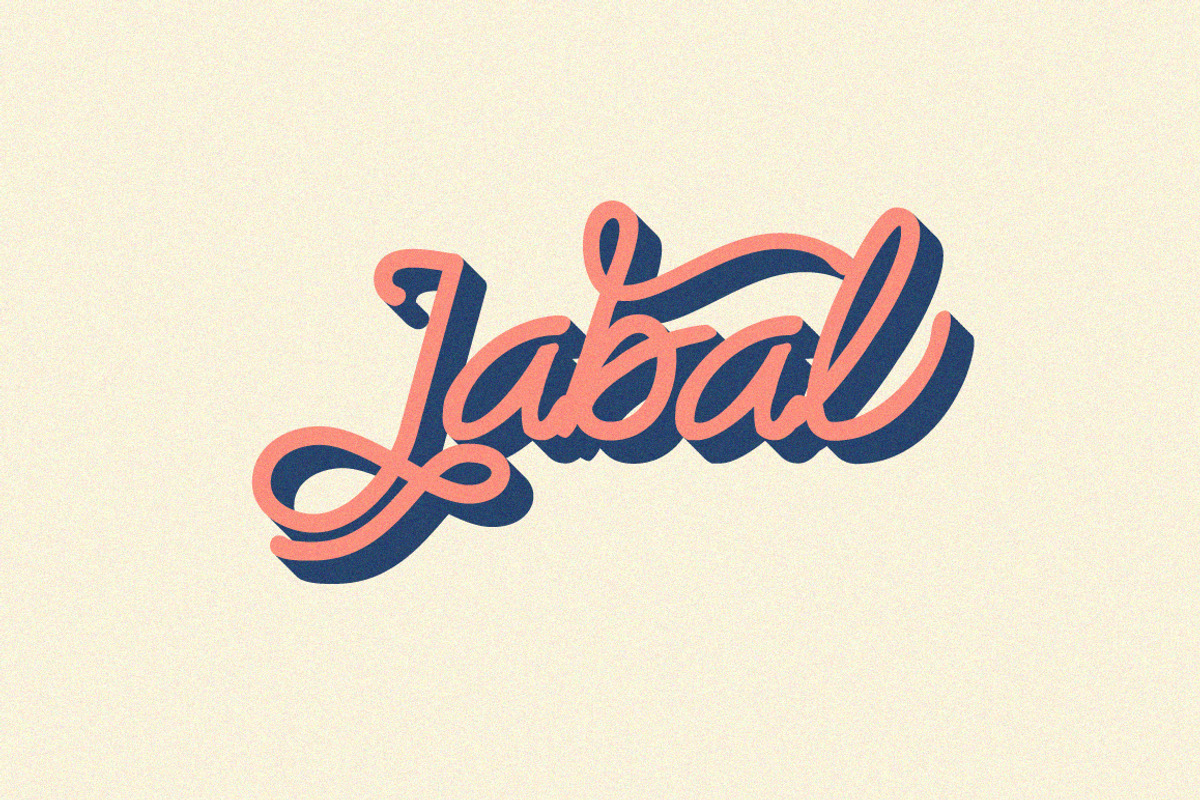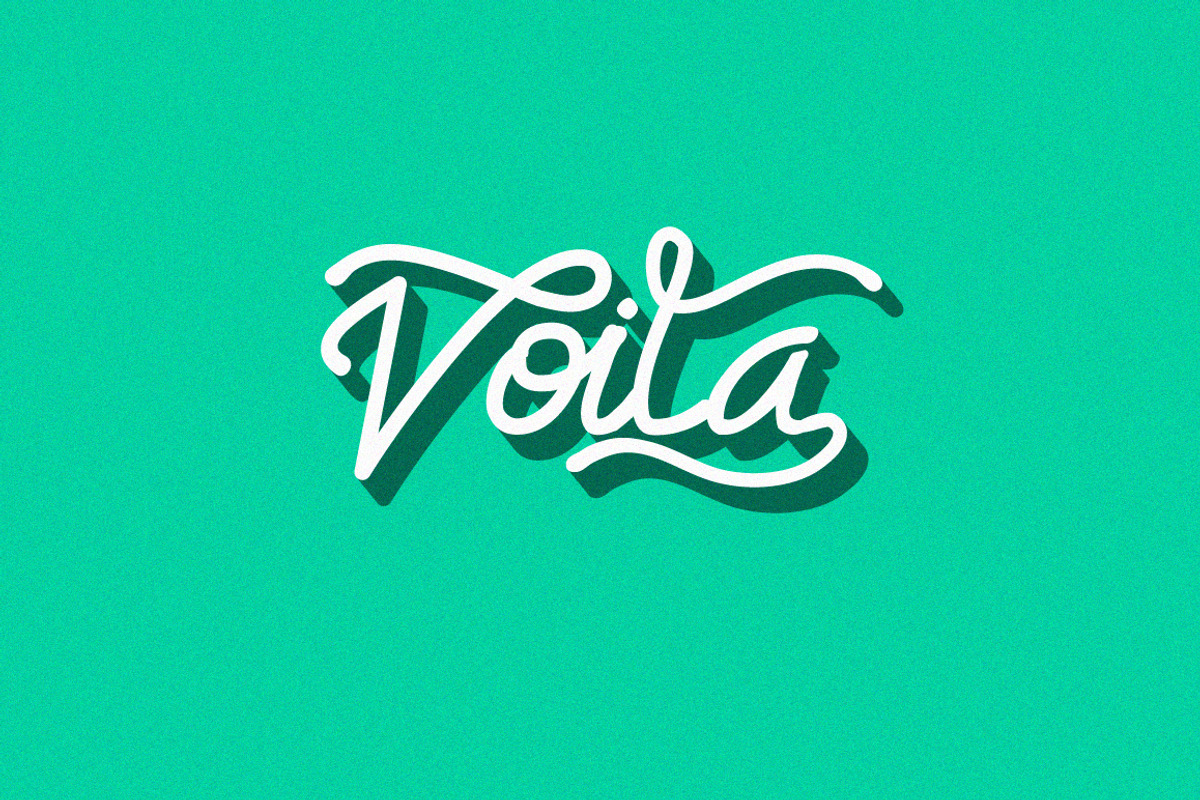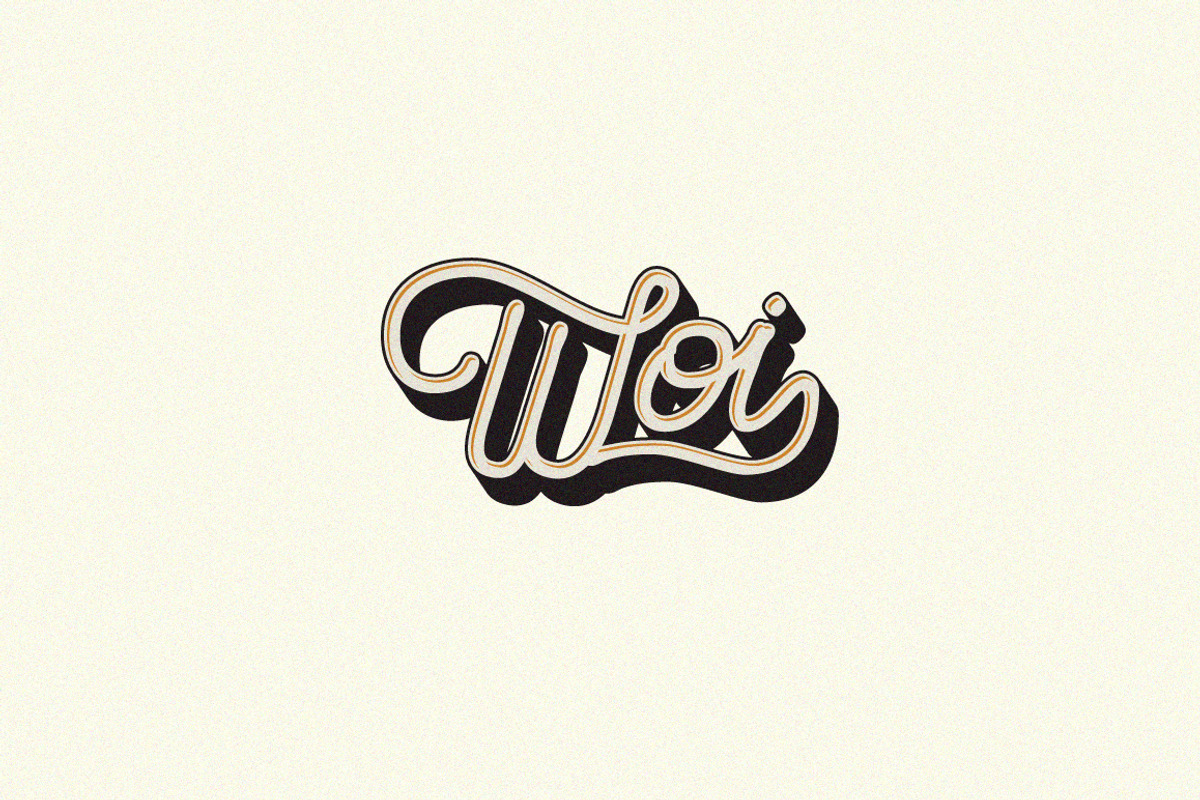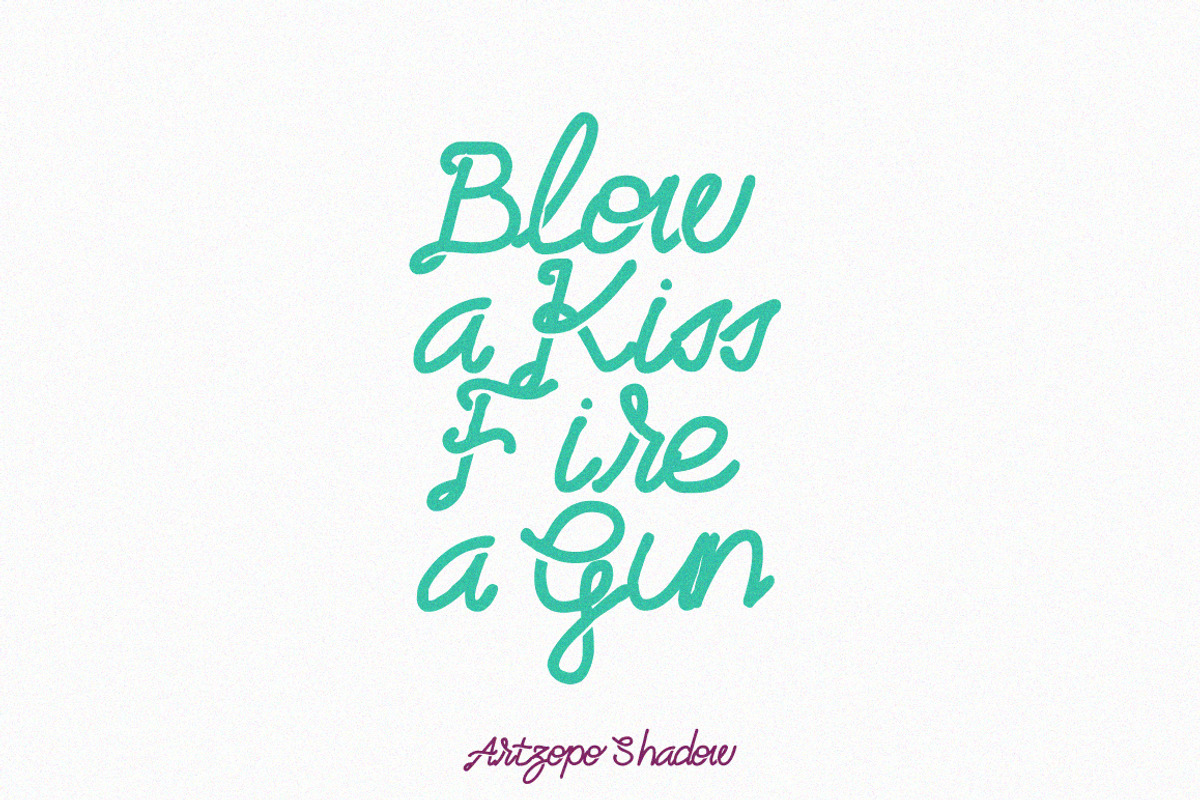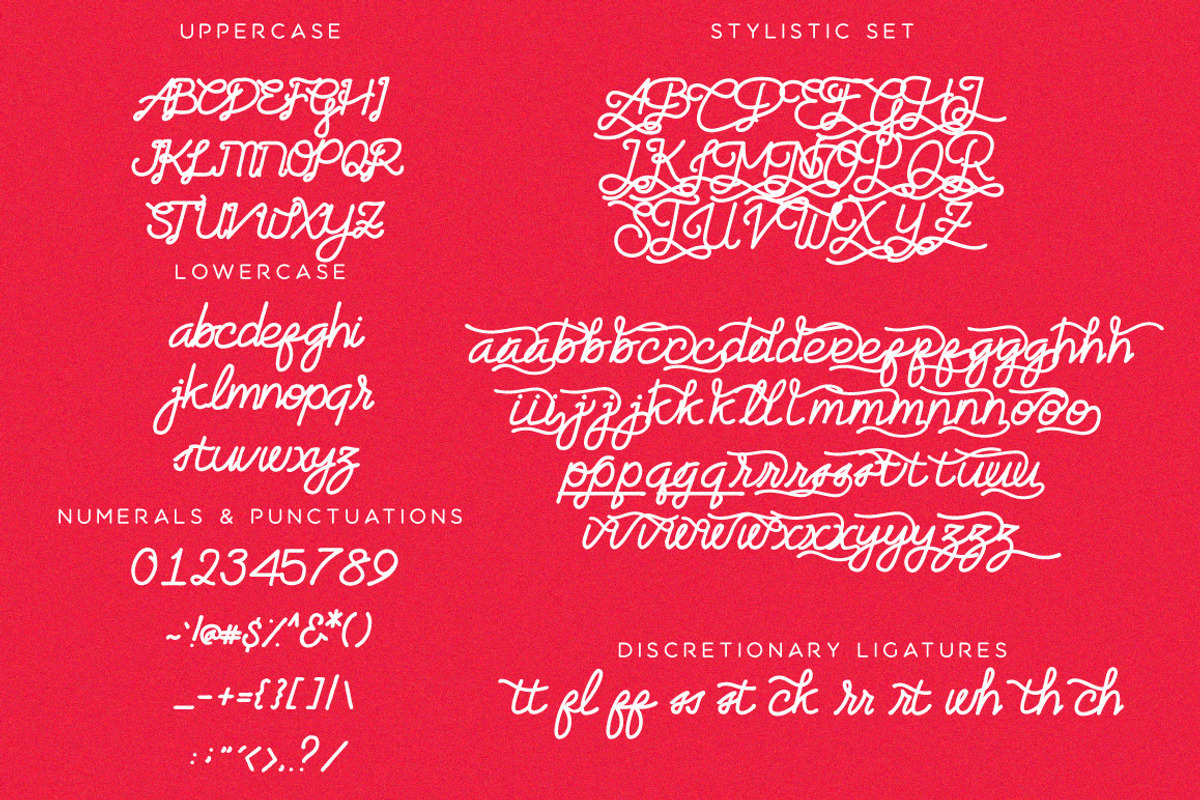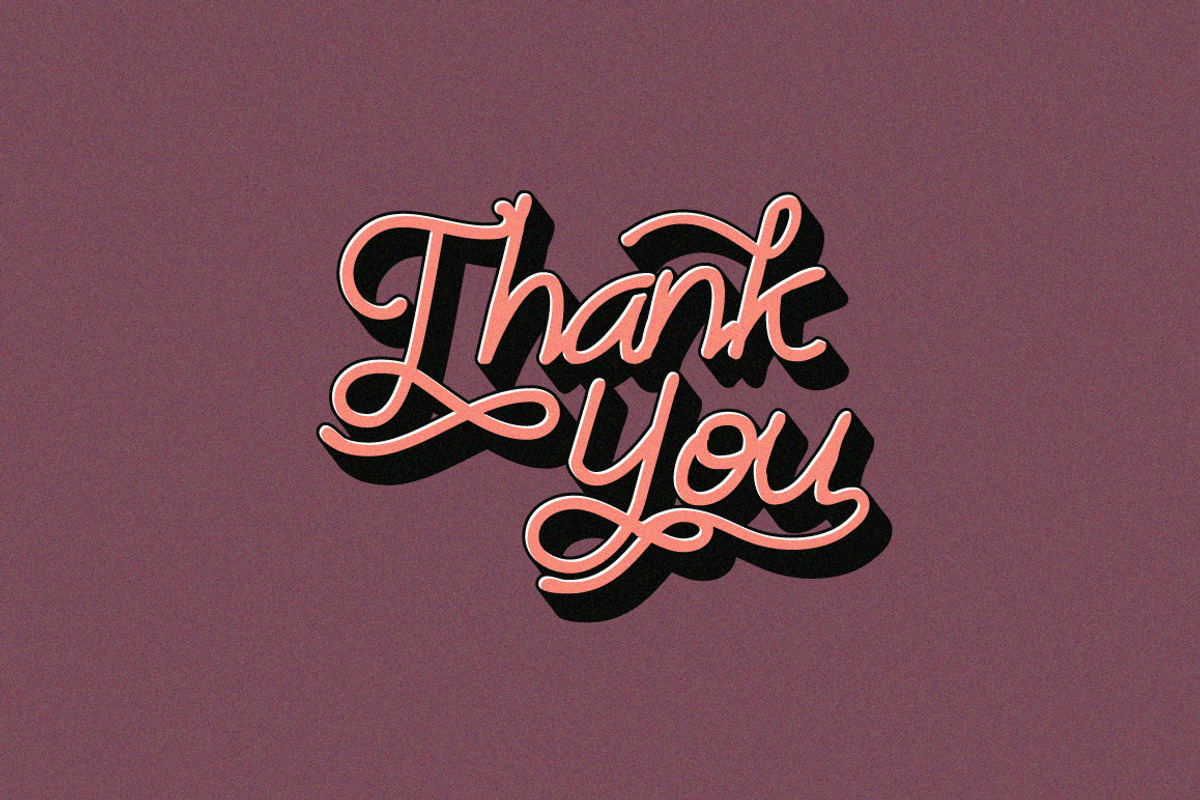
Artzopo Font
Artzopo Font by Kreasi Malam is a font selected for branding, posters, packaging, typography.
- Available in uppercase, lowercase, numerals and punctuations.
- Artzopo Artzopo
- Artzopo Shadow Artzopo Shadow
Why Artzopo Font is worth a look
Artzopo Font by Kreasi Malam fits naturally into Branding, posters, packaging, typography.